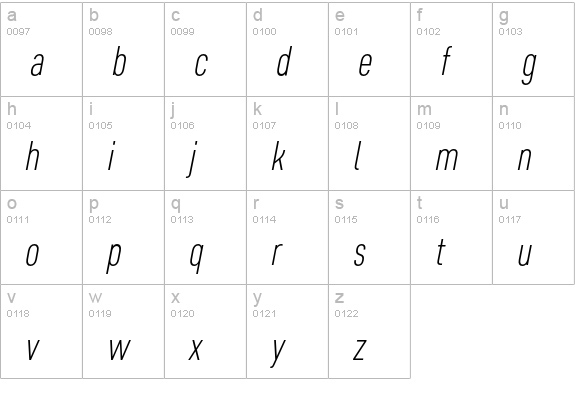
Core Sans D 27 Cn Light Italic is a refined, elegant, italic variant in the Core typeface family \xE2\x80\x94 well suited to elegant body text, refined sub-headings, and luxury branding.
Core Sans D 27 Cn Light Italic font is a sleek and modern typeface that exudes elegance and sophistication. Its slender letterforms and gentle slant create a sense of movement and fluidity, making it perfect for adding a touch of style to any design project. This font is ideal for use in branding, editorial design, and advertising, where a contemporary and refined look is desired. Best of all, Core Sans D 27 Cn Light Italic font is completely free to download at FontsMarket.com. This means that you can access this high-quality typeface without any cost, making it a valuable addition to your font collection. Don't miss out on the opportunity to enhance your designs with this beautiful and versatile font - download Core Sans D 27 Cn Light Italic today!